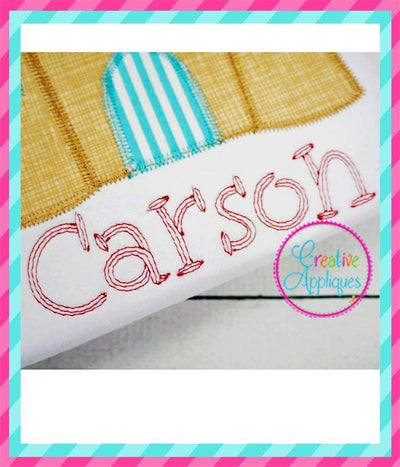
Hopscotch Embroidery Font
This font is a running stitch.
Includes:
1. Uppercase and lower case letters A to Z
2. 9 sizes: 1″, 1.25″, 1.5″, 1.75″, 2″, 2.25″, 2.5″, 2.75″, 3″
Approximate size and stitch count based on the uppercase letter A:
1.0 inch: 1.06″ W X 0.98″ H; 152 stitches
1.25 inch: 1.34″ W X 1.26″ H; 180 stitches
1.5 inch: 1.47″ W X 1.40″ H; 190 stitches
1.75 inch: 1.81″ W X 1.72″ H; 227 stitches
2.0 inch: 2.07″ W X 1.98″ H; 243 stitches
2.25 inch: 2.39″ W X 2.28″ H; 330 stitches
2.5 inch: 2.69″ W X 2.57″ H; 436 stitches
2.75 inch: 2.89″ W X 2.75″ H; 452 stitches
3.0 inch: 3.17″ W X 3.02″ H; 493 stitches